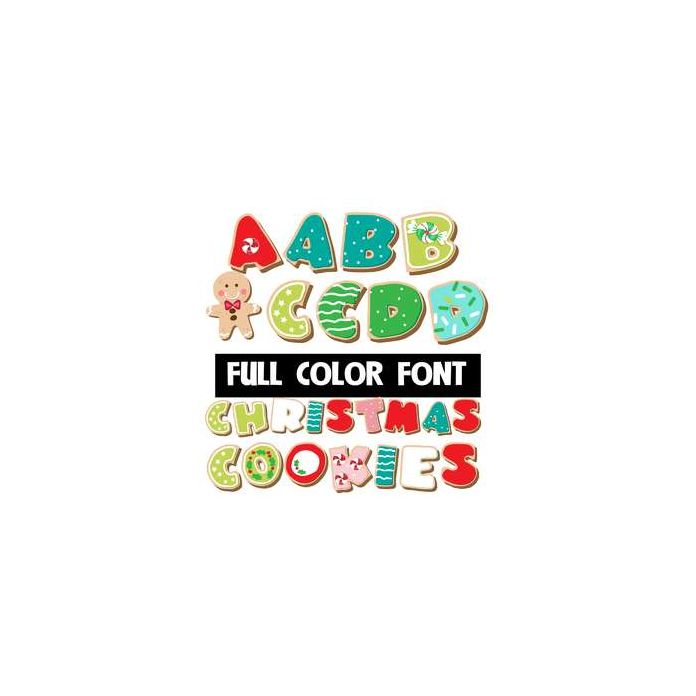
This adorable full-color font features letters that look like cookies. Use the bracket for a gingerbread cookie. This font works best for titles, displays, posters and more. Please note color fonts will show as black in non compatible programs. This font type is compatible with Silhouette Studio.